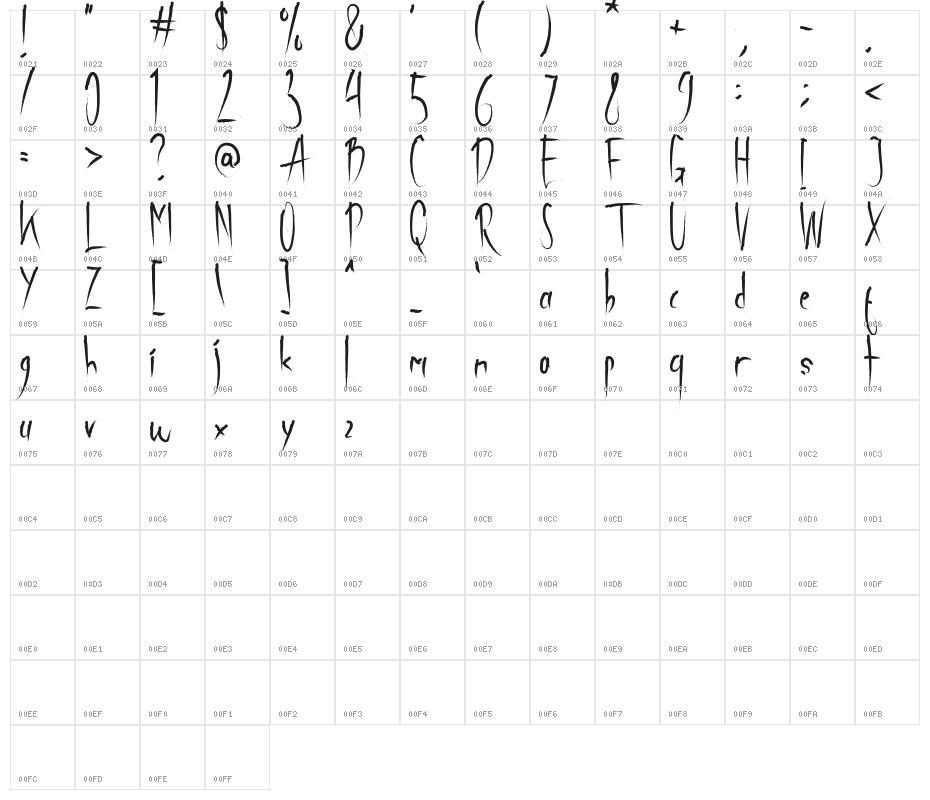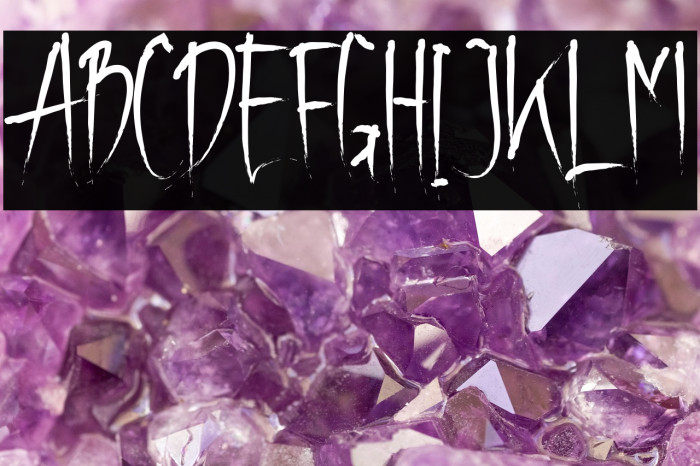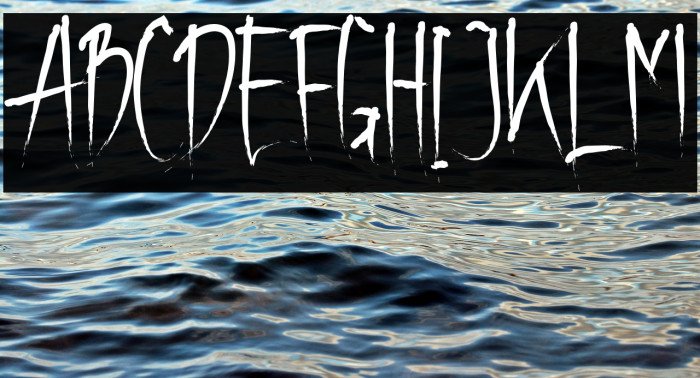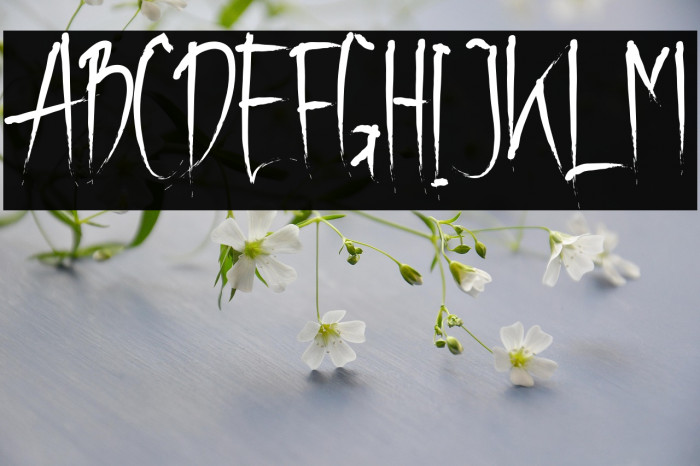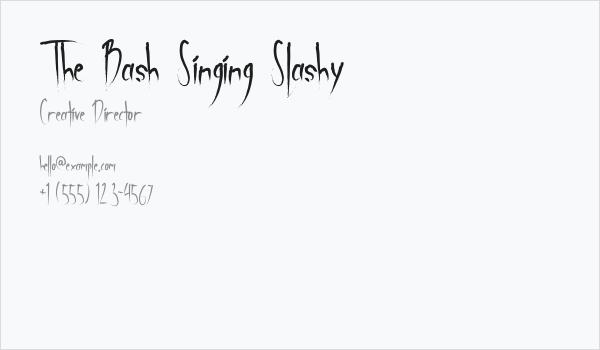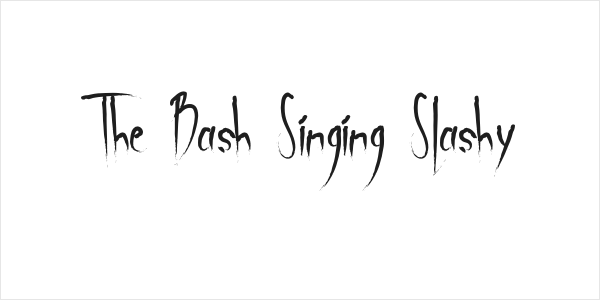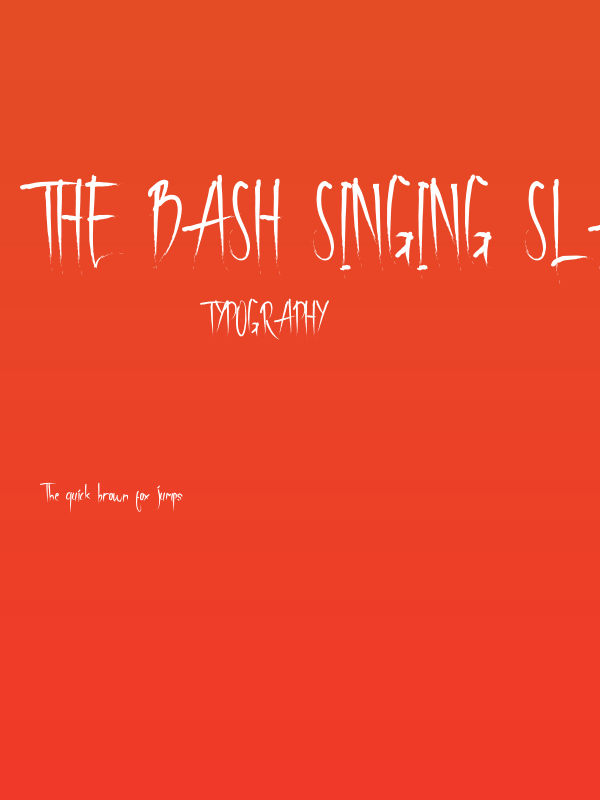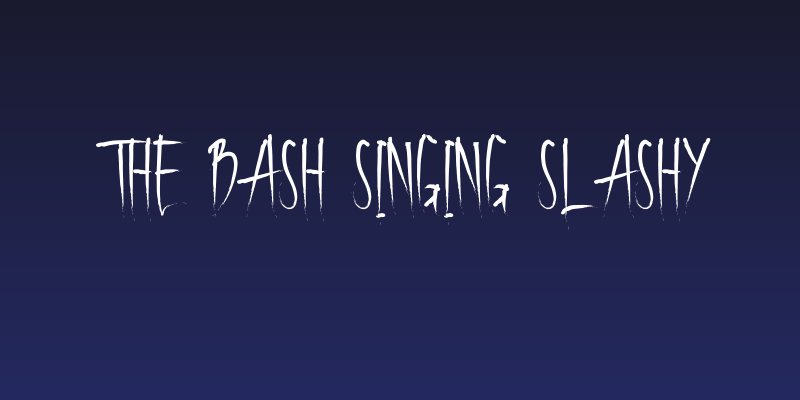
The Bash Singing Slashy Font
The Bash Singing Slashy Description
This font features a highly expressive and artistic style, characterized by its elongated and irregular strokes that give it a dynamic and energetic appearance. The letters are crafted with a hand-drawn aesthetic, showcasing a raw and organic feel. The uppercase and lowercase letters maintain a consistent flow, while the numbers and special characters complement the overall design with their unique flair. The font's uneven baseline and varying stroke widths add to its distinctive personality, making it stand out in any design project.
| Overall Style | Artistic, Expressive |
| Use Case | Headlines, Posters, Artistic Designs |
| Proposed Projects | Ideal for artistic projects, album covers, posters, and any design requiring a bold, creative touch. |